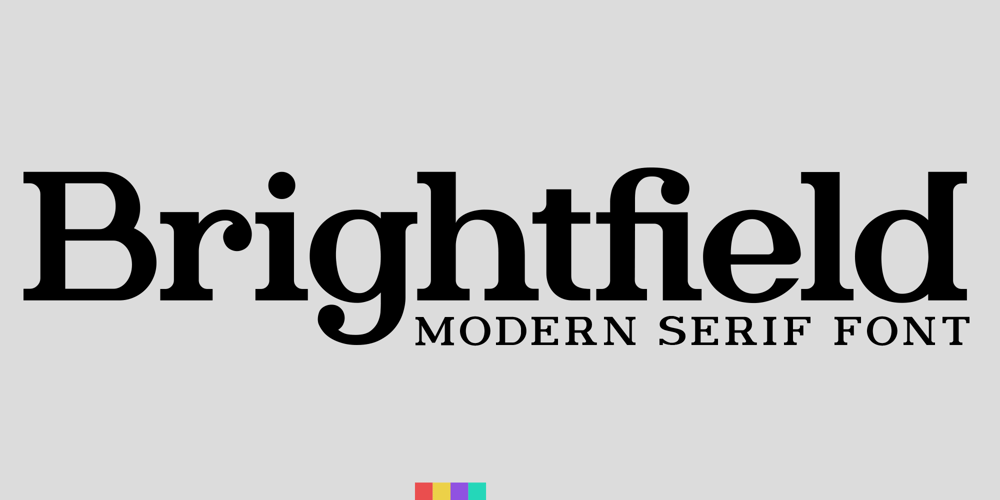
Brightfield Font Family was designed by Roland Hüse and published by Sentavio. Brightfield contains 1 styles and family package options. Brightfield Font is classic and modern serif font carefully designed to excellent connections between letters.It is good for Text and Headers with lowercase and uppercase letters both!Please see the large preview images to see how it works.